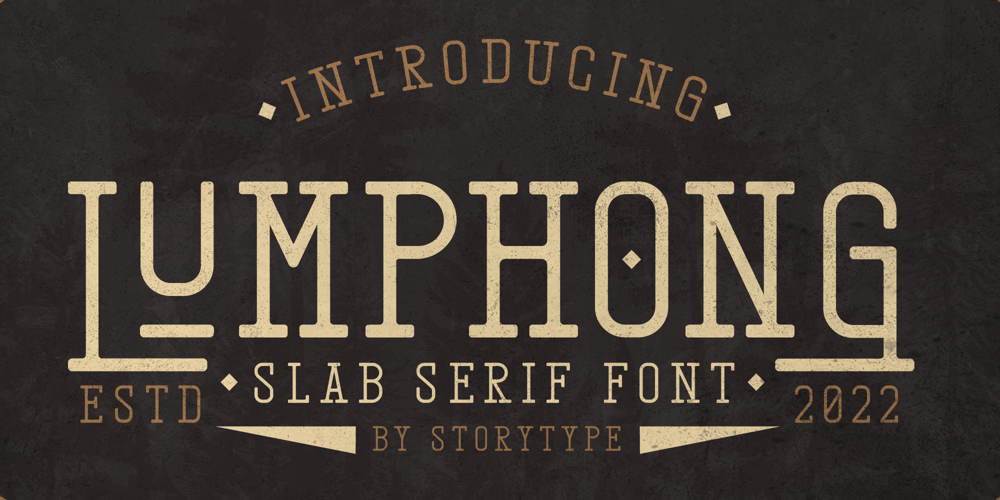
Lumphong Font Family was designed by Heru Utama Putra and published by Letterena Studios. Lumphong contains 2 styles and family package options. Lumphong is a vintage styled slab serif font. It is PUA encoded which means you can access all of the amazing glyphs and ligatures with ease!This font is neatly crafted and highly detailed.